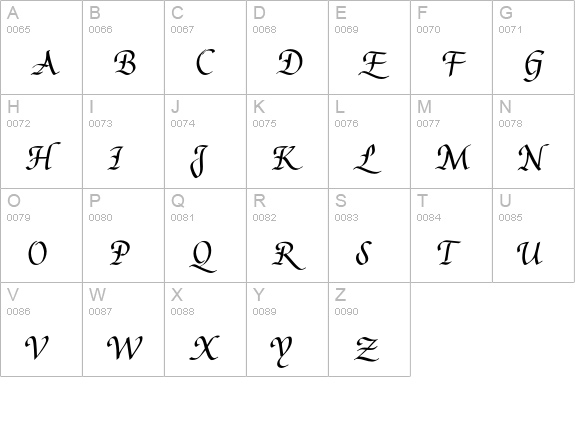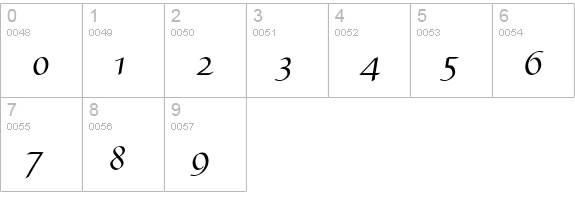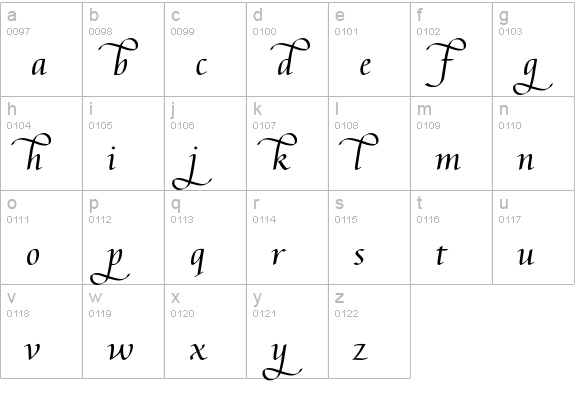
Augusta Schnurkl Std Font Details
Augusta Schnurkl Std font is a beautifully crafted typeface that exudes elegance and sophistication. Its intricate details and unique curves make it a perfect choice for projects that require a touch of class and style. The delicate flourishes and graceful letterforms of Augusta Schnurkl Std font add a sense of charm and refinement to any design. What makes Augusta Schnurkl Std font even more appealing is that it is available for free download at FontsMarket.com. This means that you can easily access this exquisite font and use it in your projects without any cost. Whether you are working on a wedding invitation, a branding project, or any other creative endeavor, Augusta Schnurkl Std font is sure to elevate your design with its timeless beauty and sophistication. Download this font today and add a touch of elegance to your work.